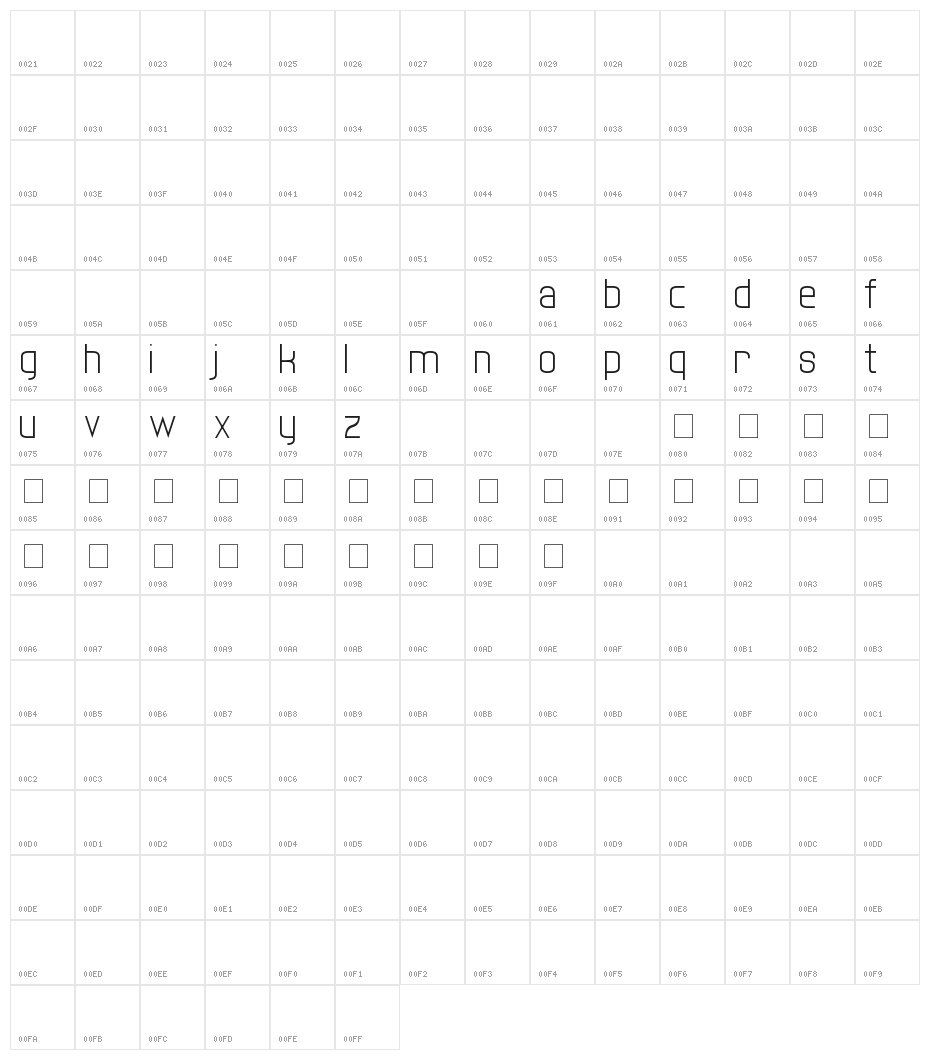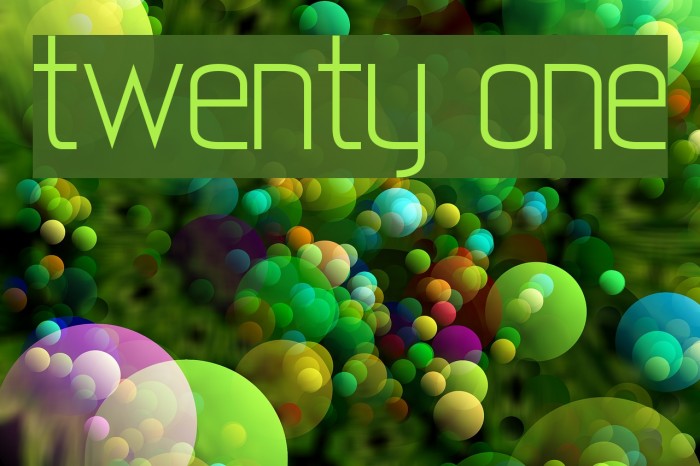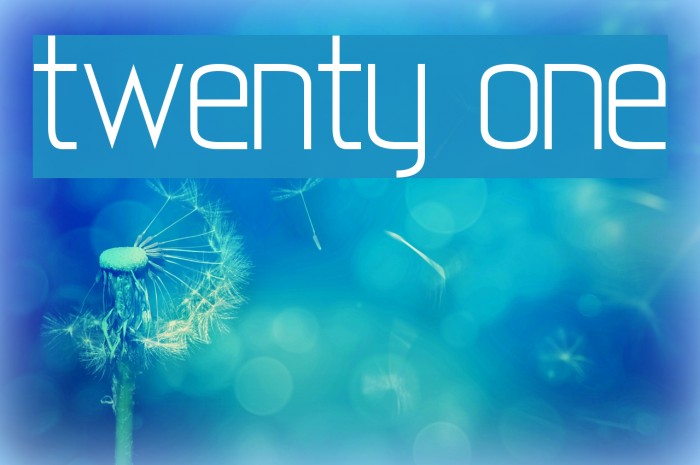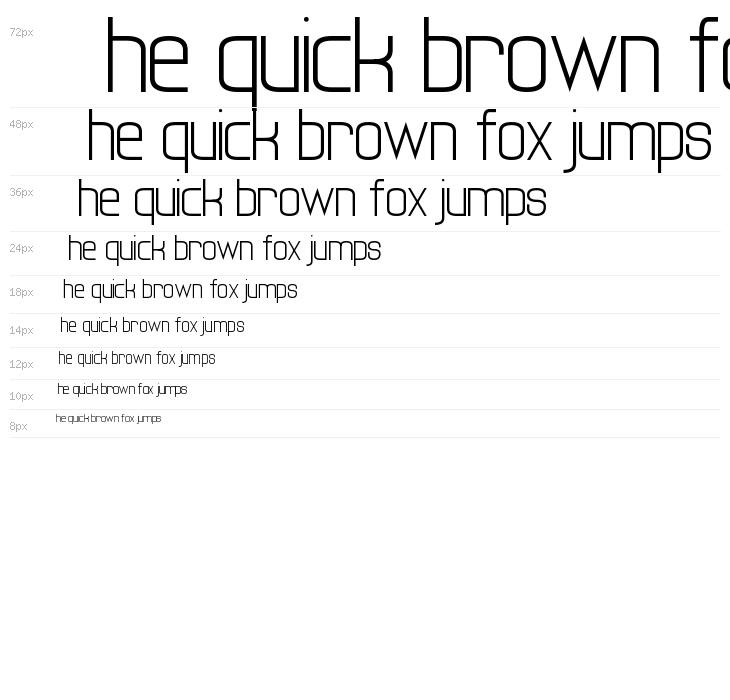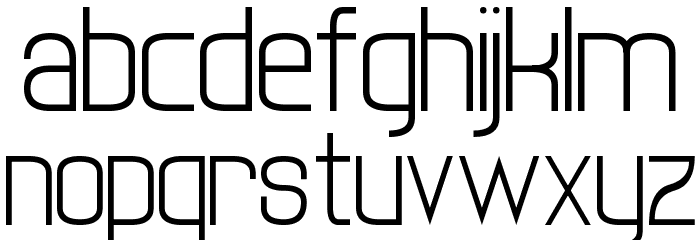
twenty-one Font
twenty-one Description
This font exhibits a modern and sleek design with a geometric and minimalist approach. The characters are constructed with clean, straight lines and rounded edges, creating a harmonious balance between sharpness and softness. The lowercase letters are uniform in height, contributing to a streamlined appearance. The font's design is highly legible, making it suitable for both digital and print media. Its contemporary style is enhanced by the consistent stroke width, which adds to its readability and aesthetic appeal. The font's simplicity and elegance make it versatile for various applications.
| Proposed Projects | Ideal for tech branding, modern websites, app interfaces, and minimalist design projects. |